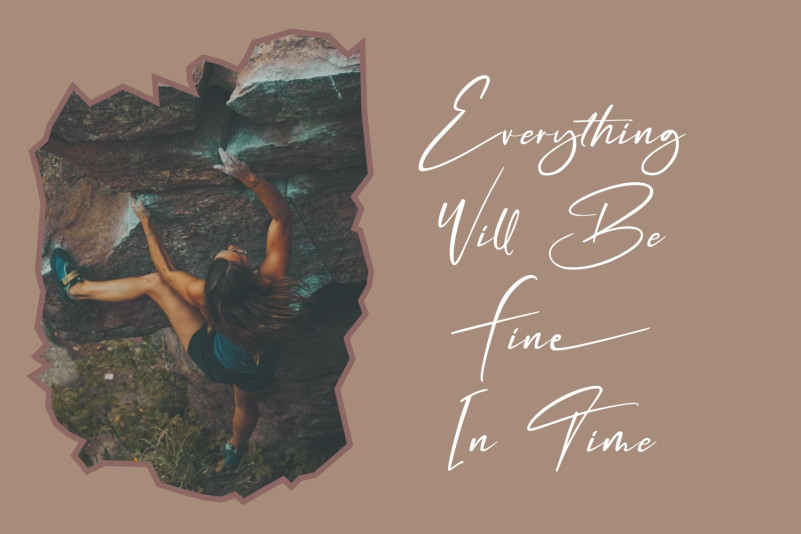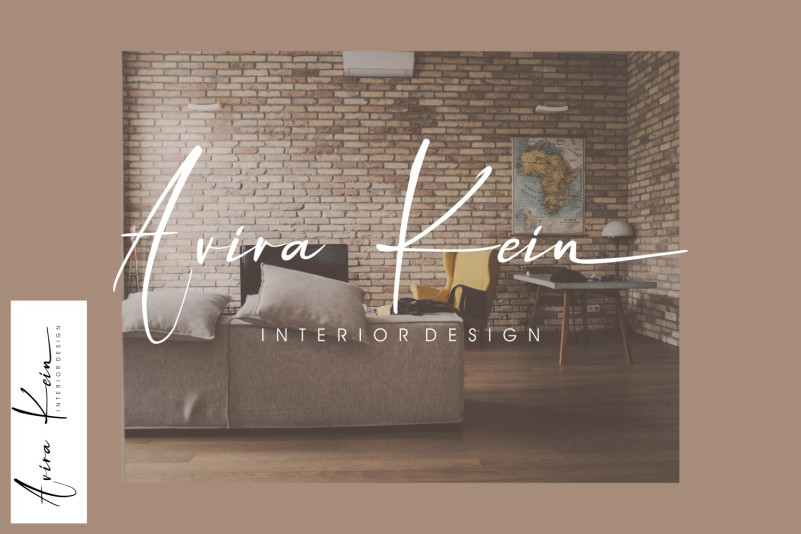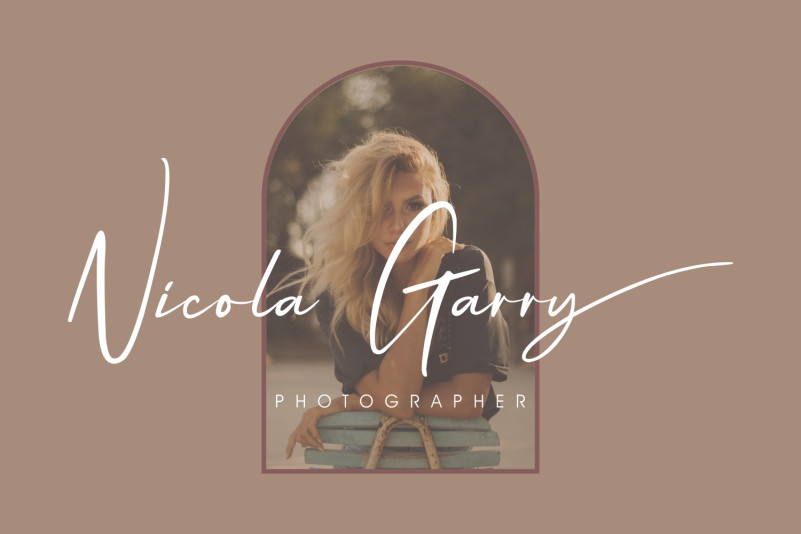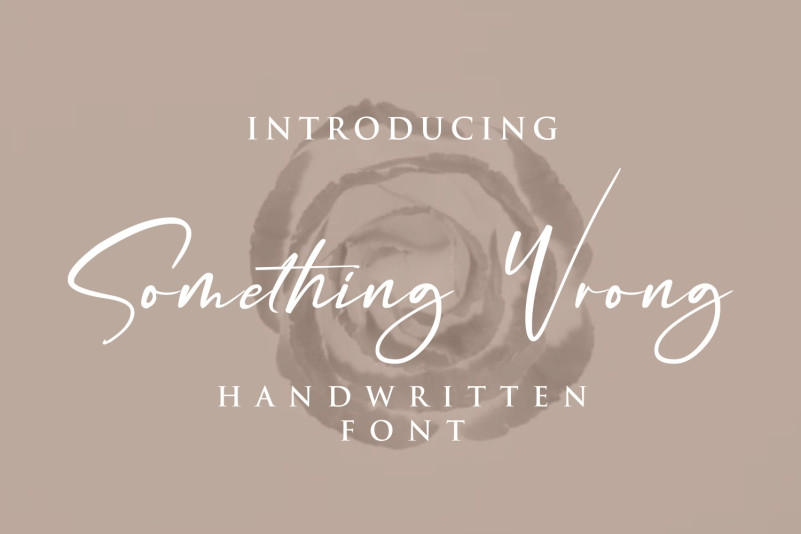
Something Wrong Font
Something Wrong Script Font is a modern script typeface. With its beautiful rhythm, this font will help you create gorgeous and classy compositions. Something Wrong is completely hand-drawn and designed to recreate natural handwriting in a distinctive and simple style; this is achieved by adding ligatures and ending swashes to make it look more authentic and guaranteed to give your text extra quality and distinction. It is the perfect choice for stylish branding & logo projects, product packaging, handwritten quotes & editorial designs.